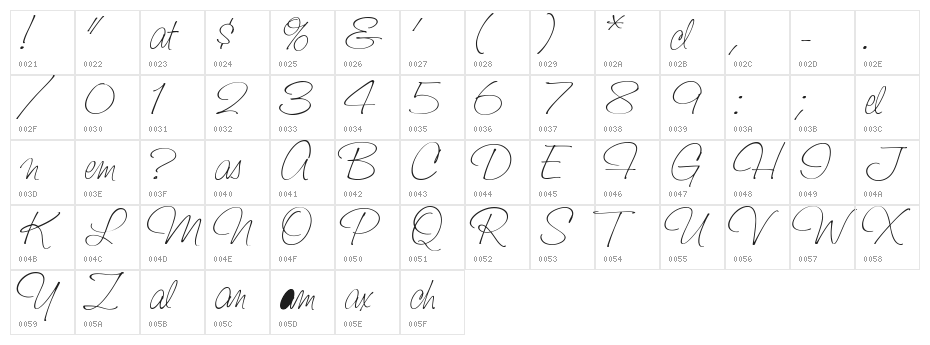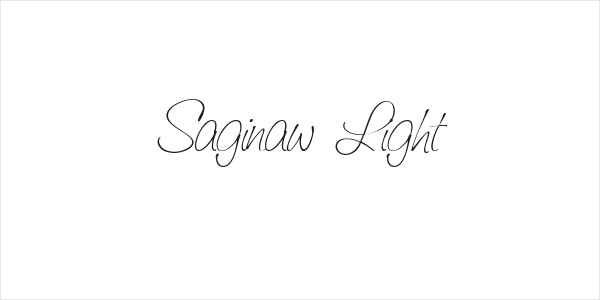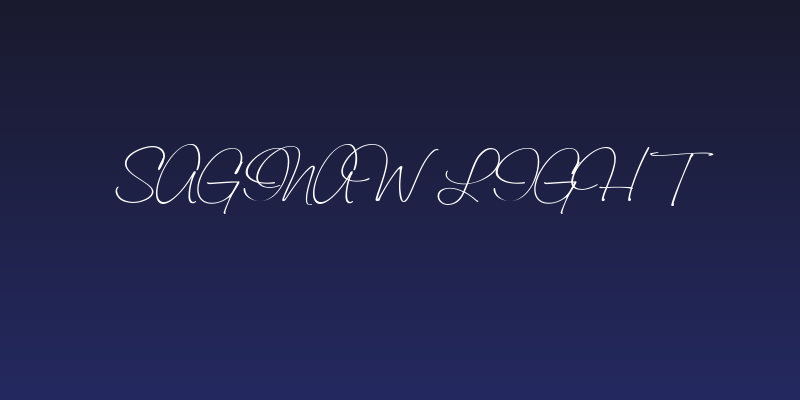
Saginaw Light Font
Saginaw Light Description
This font features a graceful, flowing script style that mimics elegant handwriting. The characters are connected with smooth, fluid strokes, giving it a personal and artistic touch. The uppercase letters are slightly more elaborate, with decorative loops and swirls, while the lowercase letters maintain a consistent, cursive flow. The numerals and special characters are designed to match the overall aesthetic, ensuring a cohesive look across all text. This font is ideal for projects that require a touch of sophistication and elegance, such as invitations, greeting cards, and personal branding materials.
| Overall Style | Elegant, Artistic |
| Use Case | Headlines, Decorative text, Personal projects |
| Proposed Projects | Ideal for invitations, greeting cards, personal branding, and artistic projects. |